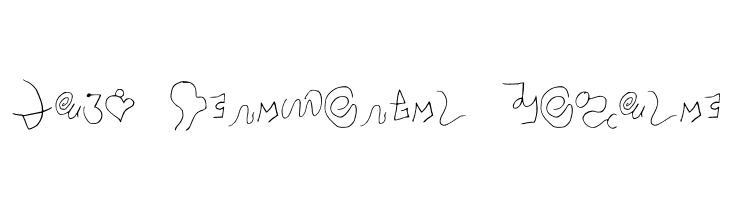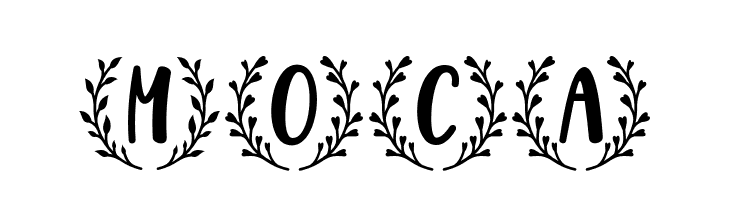
Bold, decorative font with a 3D shadow effect and textured interior.
( Christian Munk - fontstruct.com/fontstructors/25776/cmunk )
A futuristic, geometric font with bold, rounded edges and a double-line effect.
( Jen Jones - www.jenjonesfonts.com )
A playful, handwritten font with a casual and friendly style.
( ADavis )
A lively cursive font with smooth, flowing strokes and a handwritten aesthetic.
( LeChefRene - members.aol.com/lcrfonts/ )
A decorative font with autumn foliage embellishments on each character.
( Fonts by Lionel Pailloncy )
A playful font combining solid lines and dotted patterns for a whimsical effect.
A bold, expressive script font with flowing, cursive letterforms.
( Fonts by Rune Bjørnerås )
A thin, italicized monospaced font with elegant, consistent strokes.
An elegant and decorative script font with flowing, whimsical strokes.
A bold, modern font with geometric and organic elements, featuring high contrast and wide spacing.
设计师偏爱 Range Regular, Alien double Regular, HelloTypeHype, Quick Cursive Regular and LCR Autumn,因为其造型干净、适用范围广—— 从品牌识别到落地页、海报都能胜任。